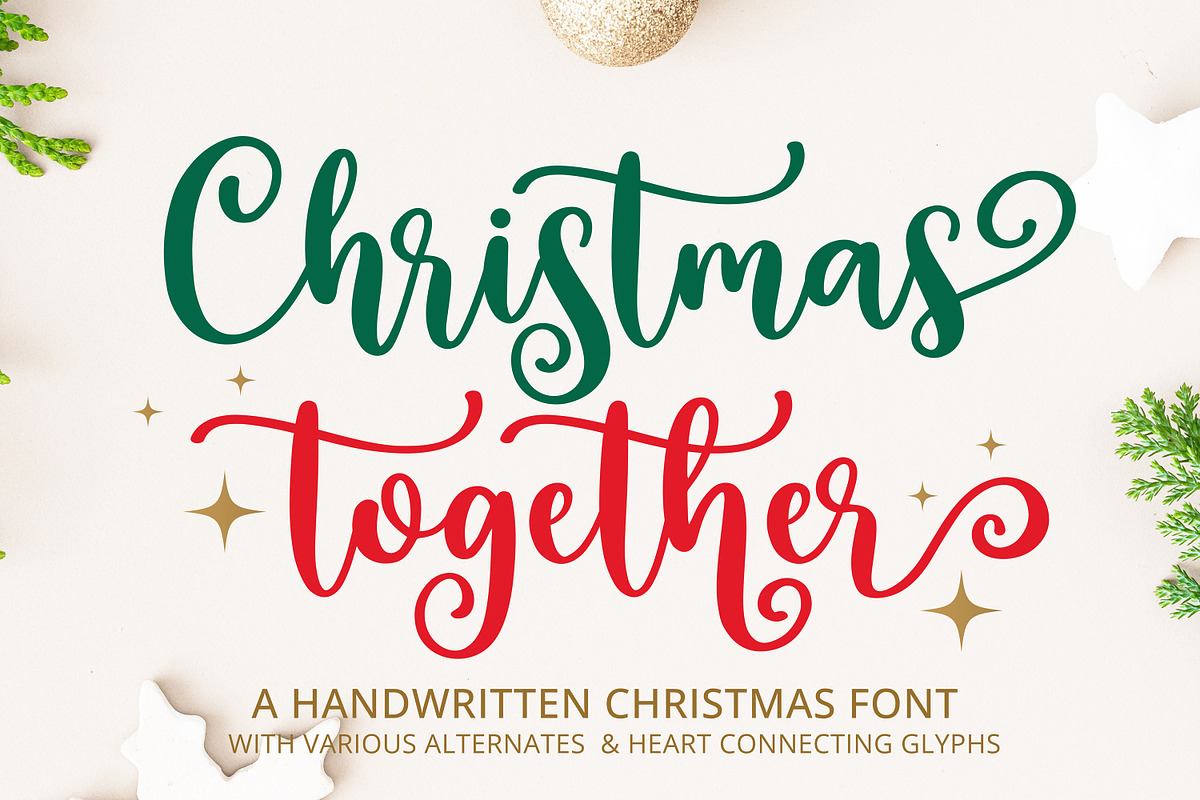
Christmas Together Font Free Download is a festive and elegant handwritten script font designed specifically for holiday-themed designs. With its smooth, flowing letterforms and cheerful vibe, this font is perfect for creating Christmas cards, holiday invitations, festive branding, social media posts, and gift tags. It adds a warm, personal touch to your typography, capturing the spirit of the season.
Using the Christmas Together Font Free Download brings a joyful, heartfelt feel to your designs. Whether you're working on holiday greetings, promotional materials for Christmas events, or crafting personalized gifts, this font adds a charming, seasonal touch that resonates with warmth and joy.